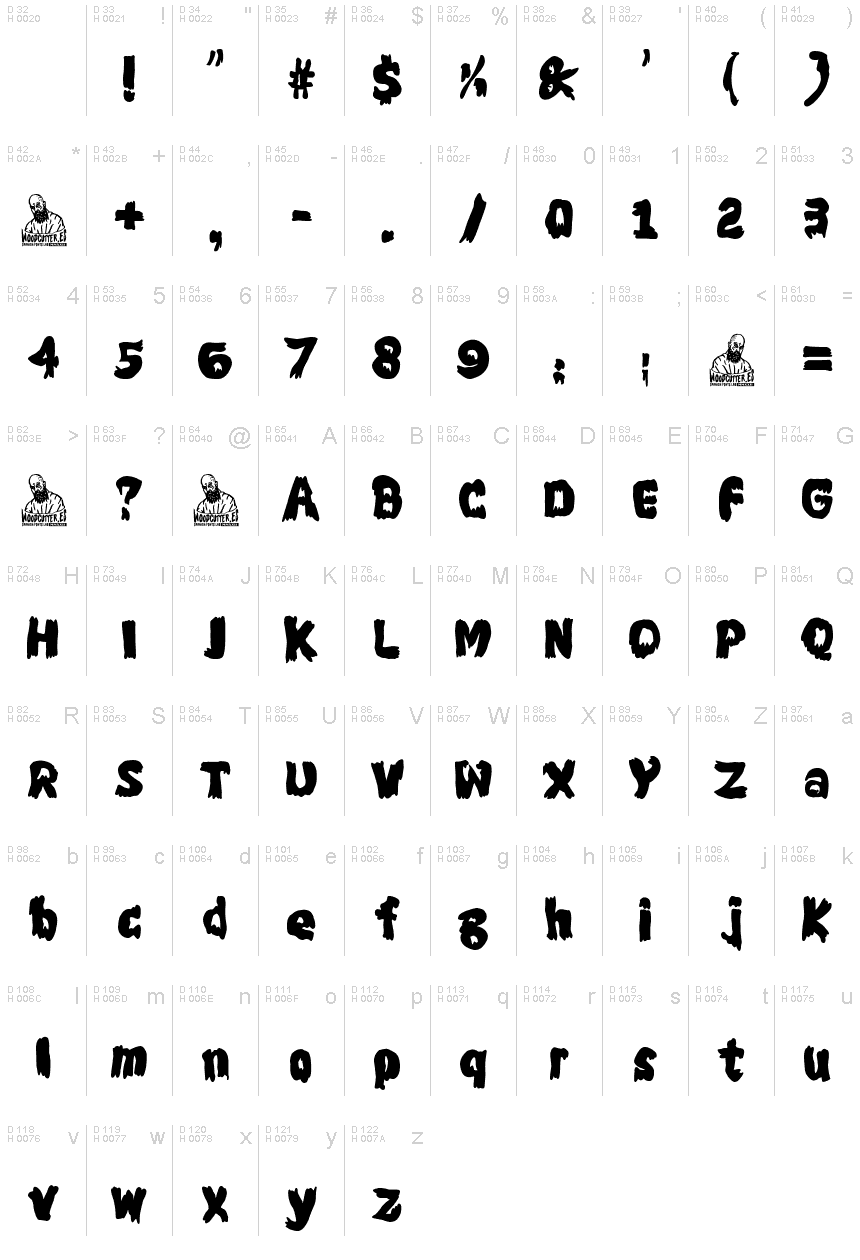
The Strange and Toxic Door
The Strange and Toxic Door, a brilliant creation by Woodcutter, is an extra-bold brush font that dares to push boundaries.
With its dynamic strokes and edgy personality, this font is perfect for eye-catching logos and striking headlines. Its boldness adds drama to album covers and movie posters, while its unique style brings life to magazine spreads and book covers. Whether you're designing for the fashion industry or the music scene, The Strange and Toxic Door will leave a lasting impression on any project that craves a touch of excitement.